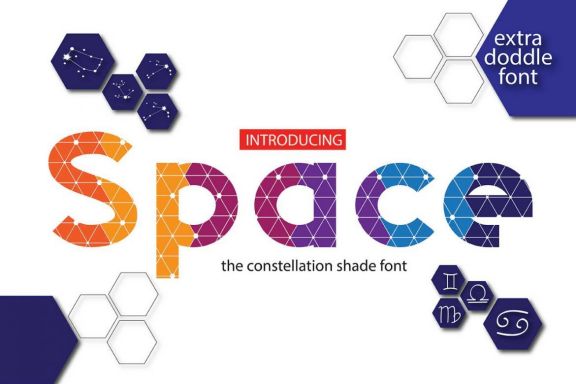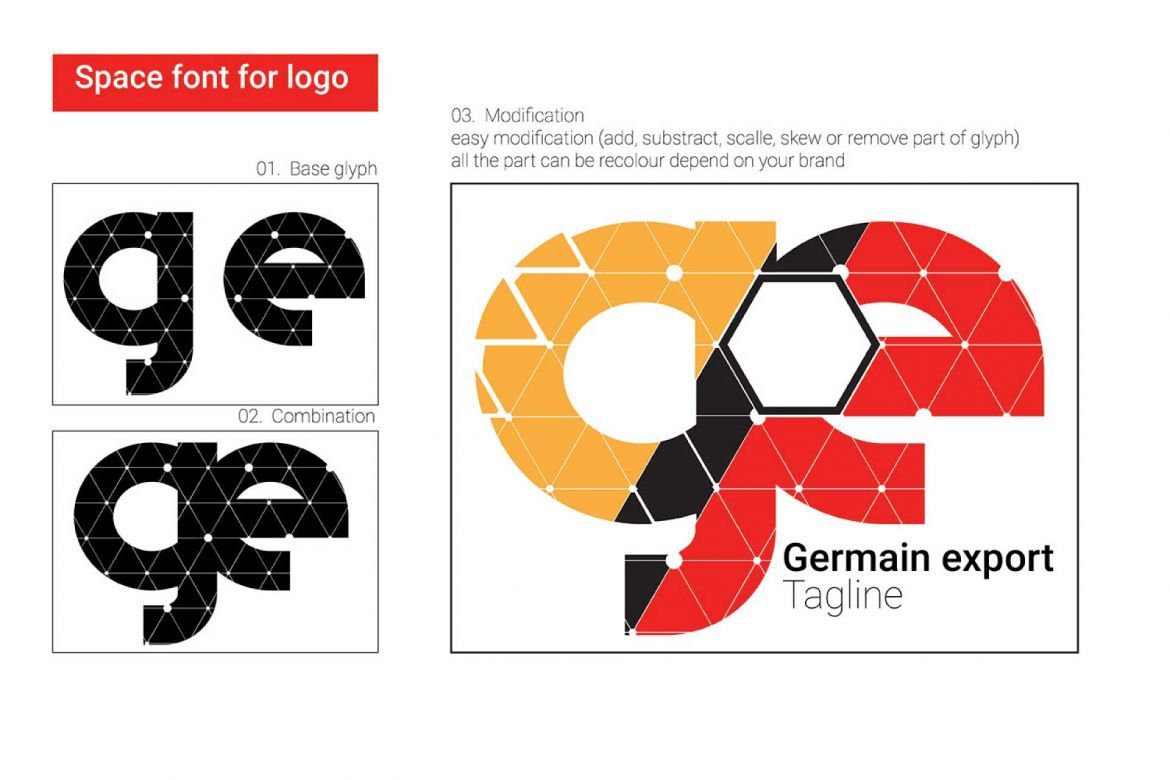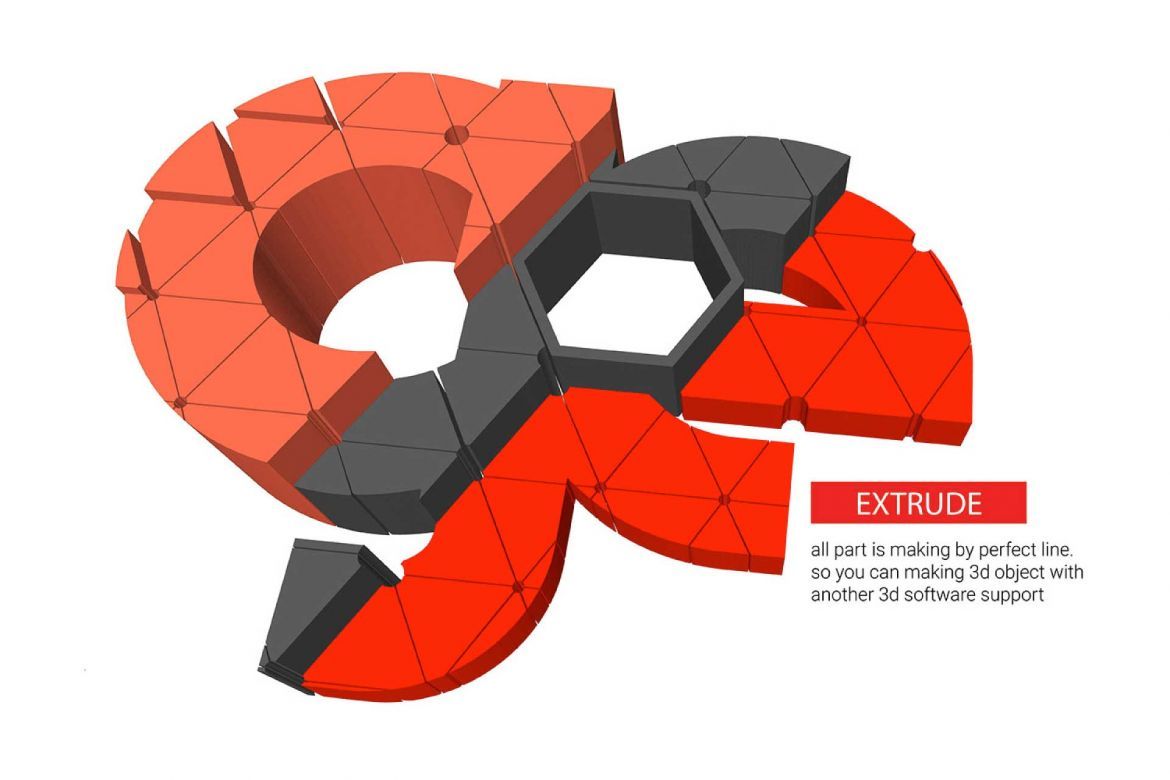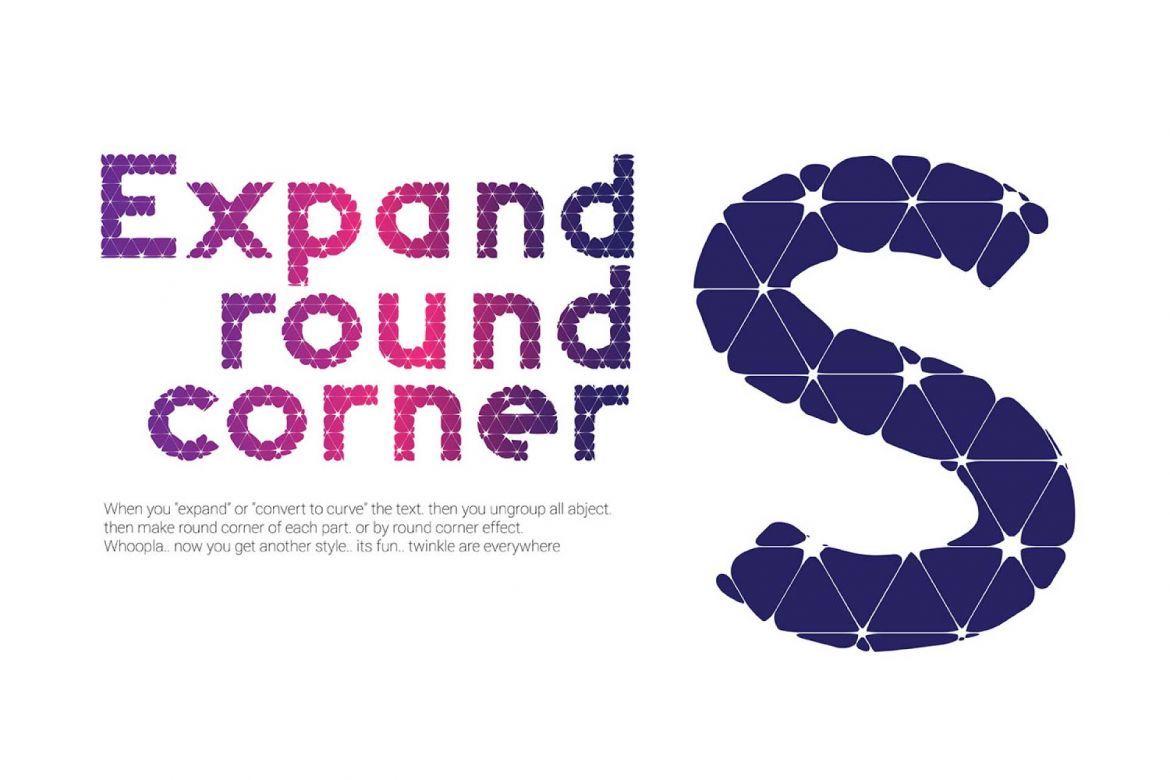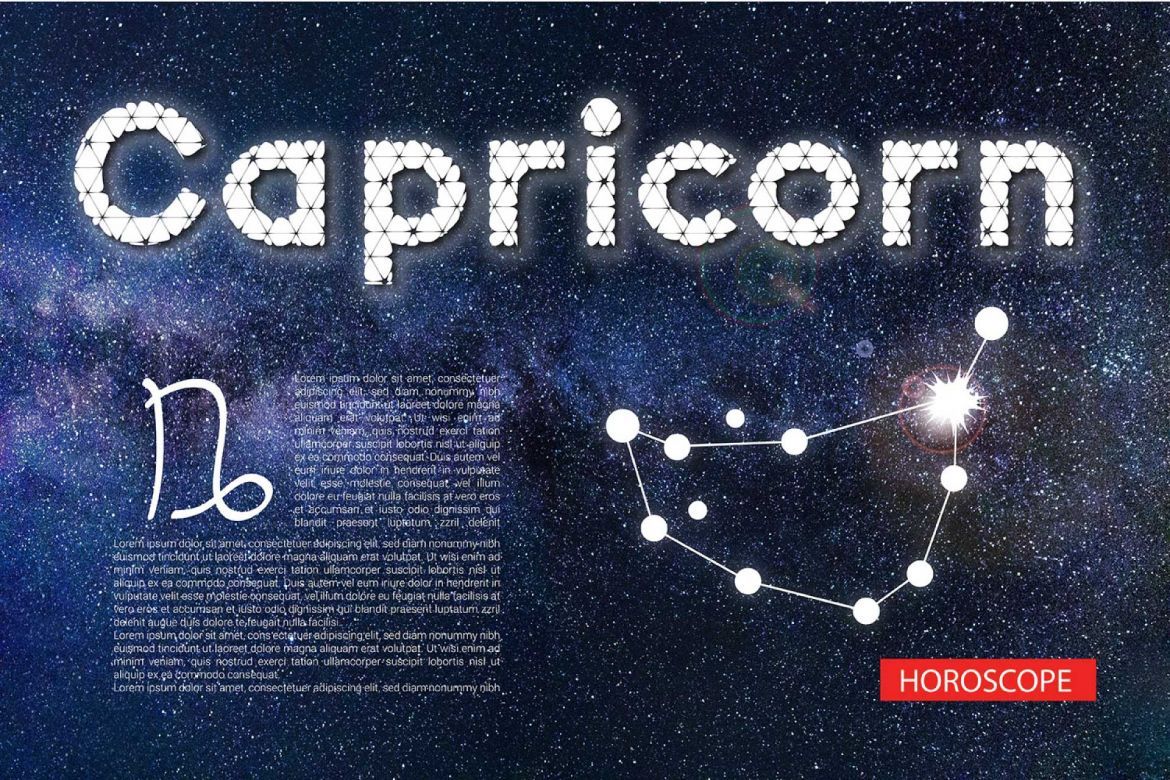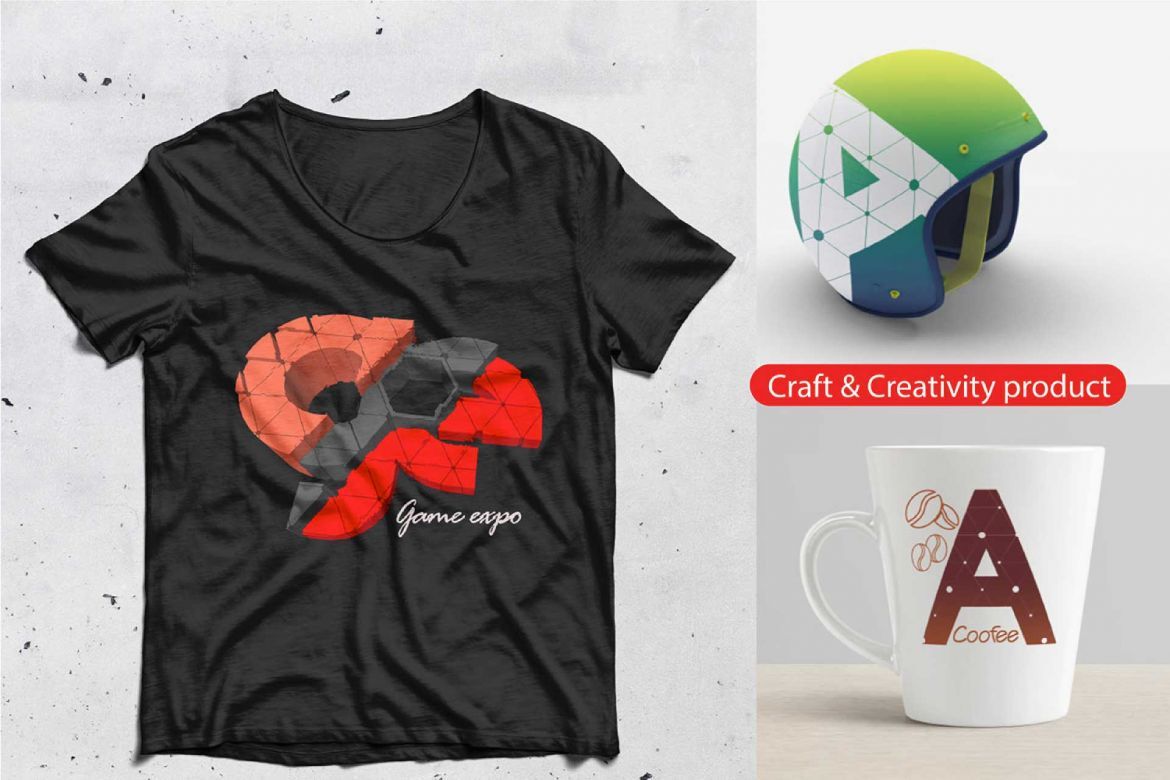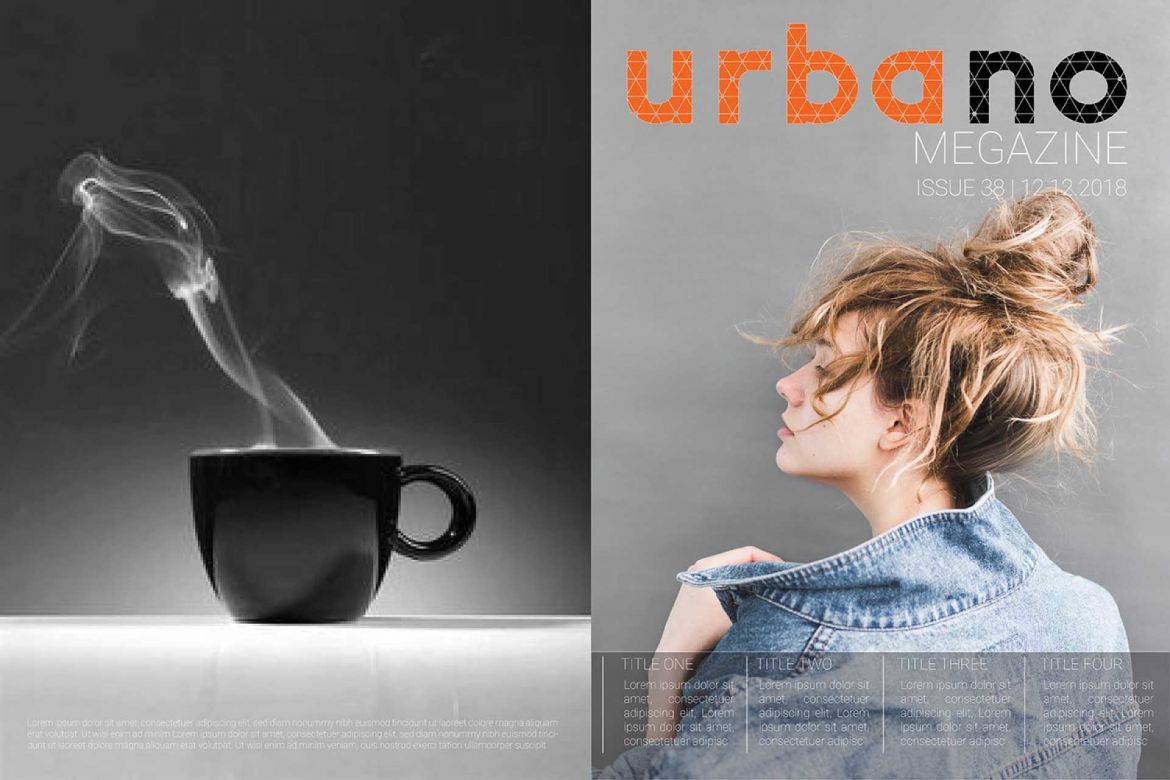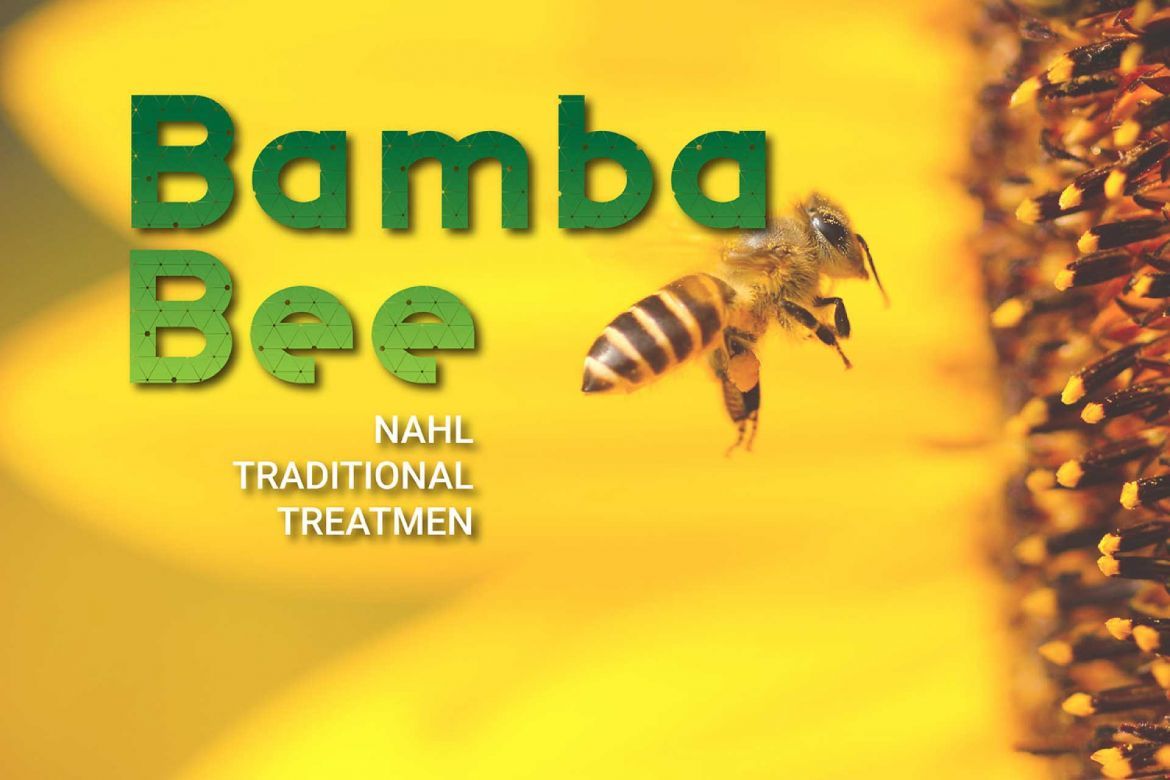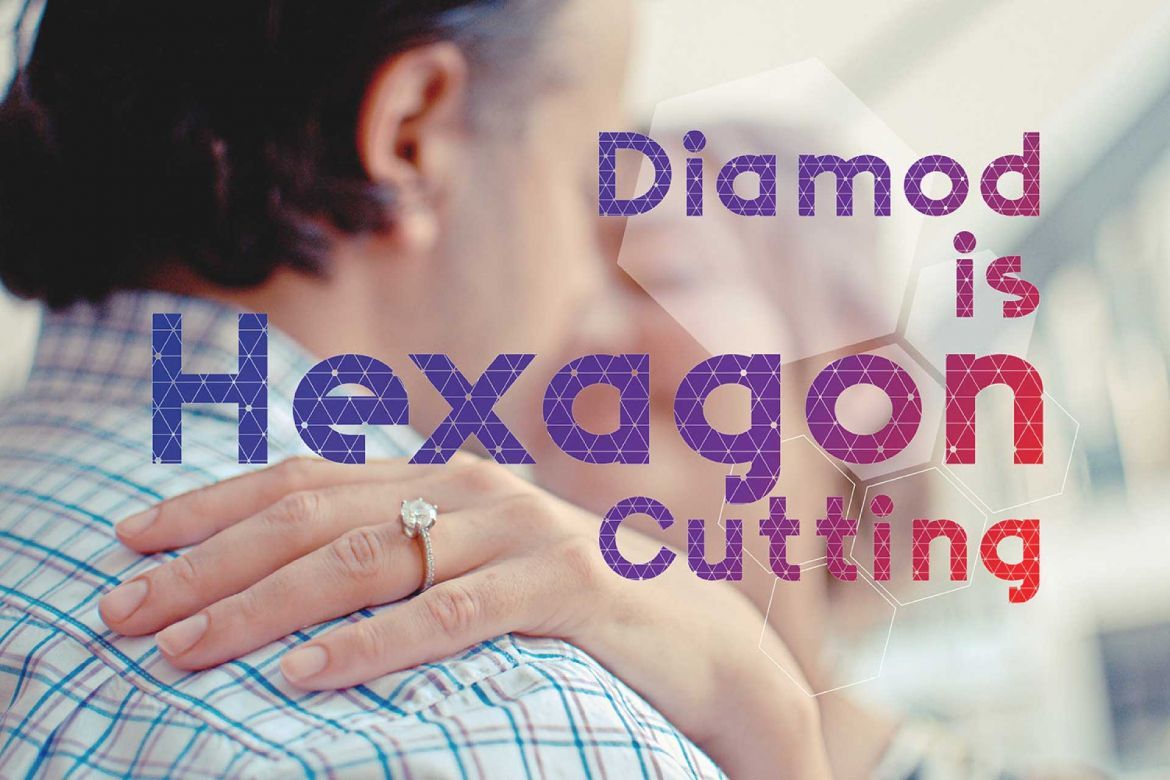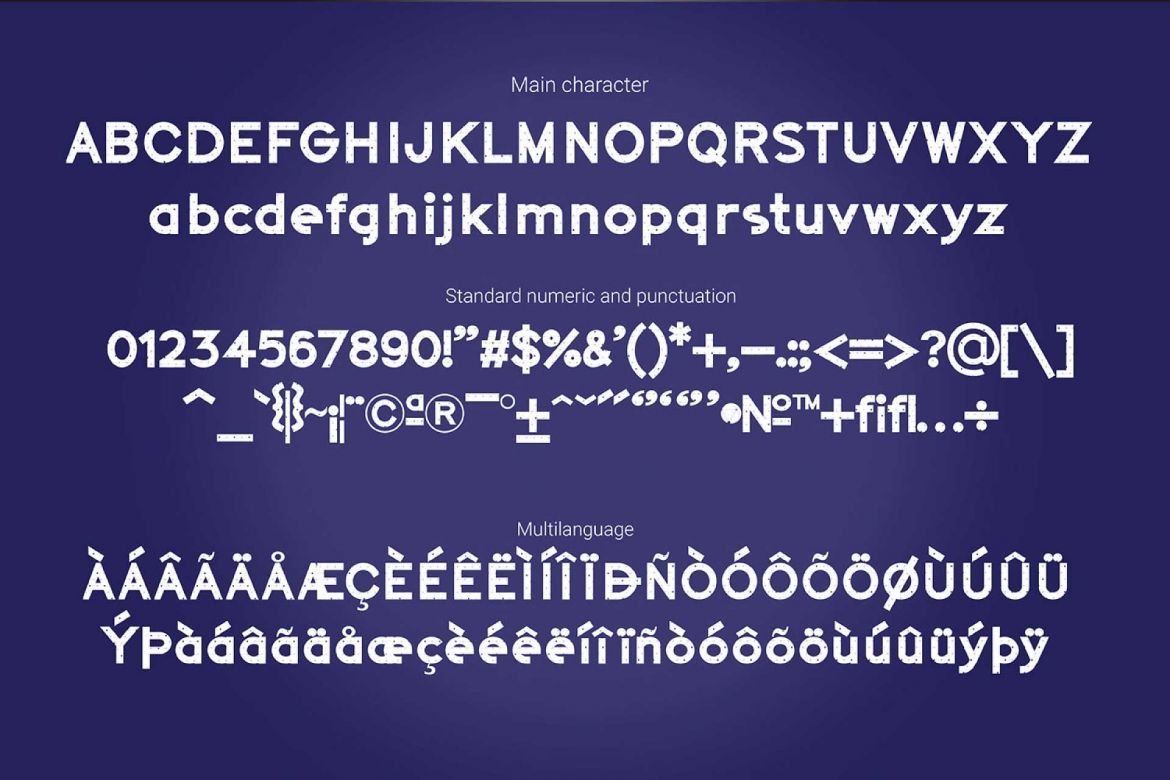
Space Color Font
Space is a beautiful color or SVG font, made up of geometric elements that give it a hexagon pattern. These elements become part of the font hatch with space nuances, and this font comes with added bonuses!
• detail cut
• extra doodle font